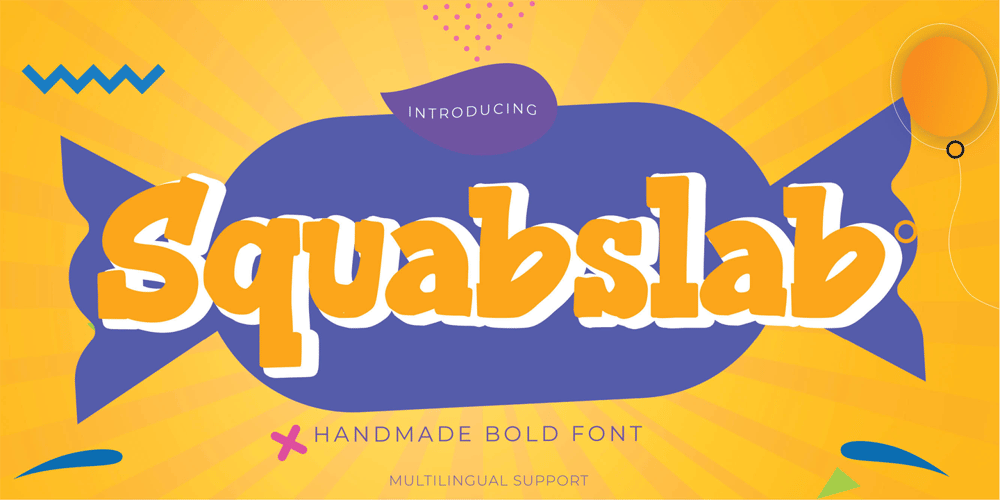
Squabslab
Squabslab font
Squabslab Font Family was designed by Abdul Malik Wisnu, Anang Fibriyanto and published by Gassstype. Squabslab contains 1 styles and family package options. Hello Everyone, introduce our new product Squabslab – Handmade Bold Font Display, inspired by the title of the sports poster and We make it very energetically. Squabslab font with strong and challenging nuances. very suitable for the title, typography, Poster, magazines, brochures, packaging,Websites and much more for your design needs, making your designs more modern and professionalThis handmade font will make your design has a beautiful natural touch for each details. It is perfect for any design project as Invitation,logo, book cover, craft or any design purposes.